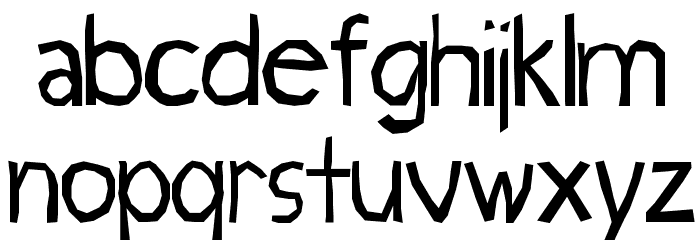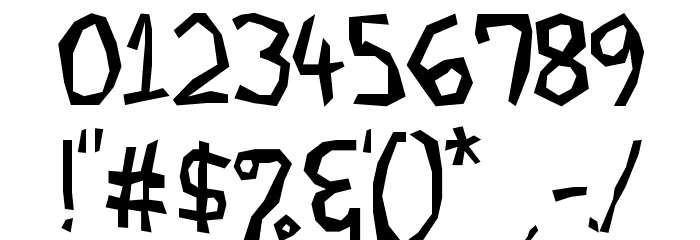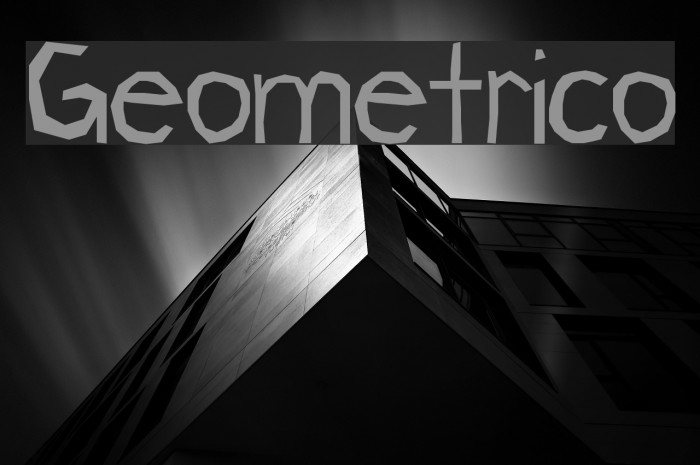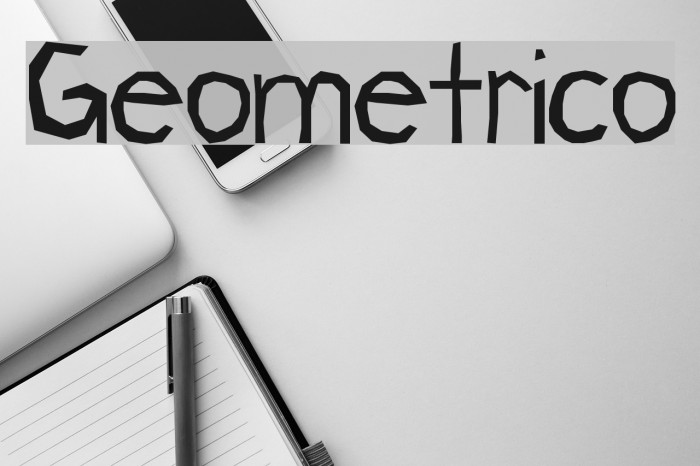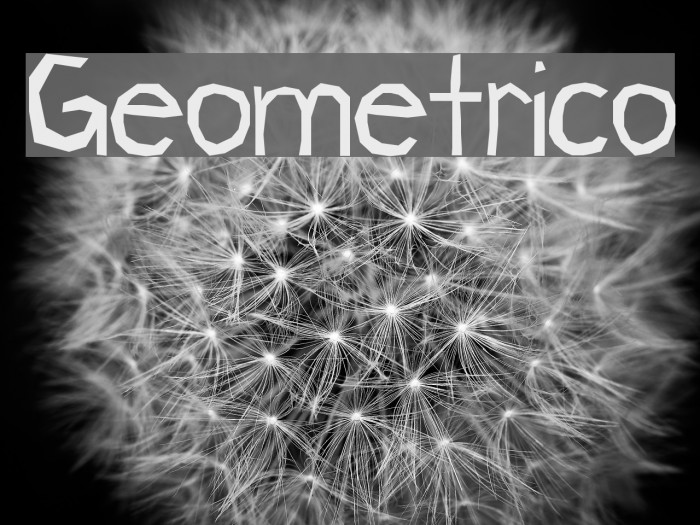
Geometrico Font
This font features a bold, geometric style with angular and sharp edges, giving it a modern and edgy appearance. The uppercase and lowercase letters maintain a consistent width, creating a uniform look. The numerals and special characters follow the same geometric design, ensuring a cohesive appearance across all characters. The font's unique style makes it stand out, with each letter having a distinct and recognizable shape. The angular design is reminiscent of futuristic or digital themes, making it suitable for projects that require a modern and innovative touch.
A bold, geometric font with angular edges and a modern style.
- Proposed Projects: Ideal for branding, posters, digital art, and futuristic-themed projects.